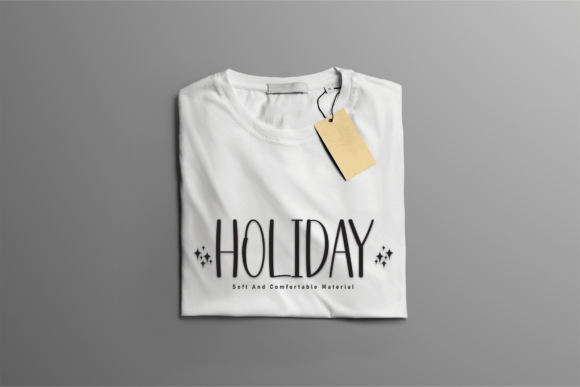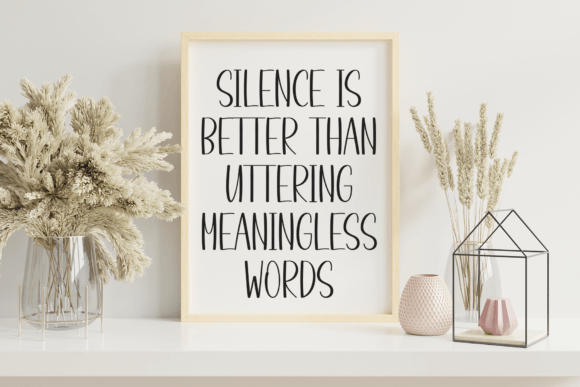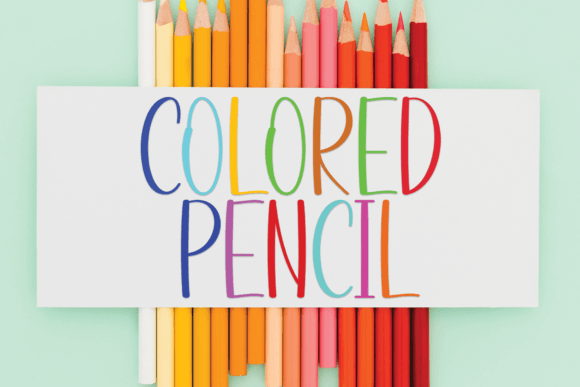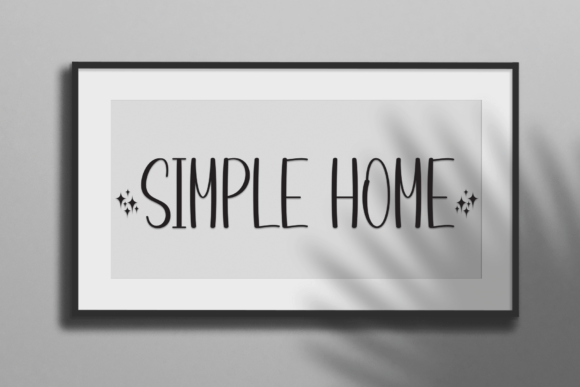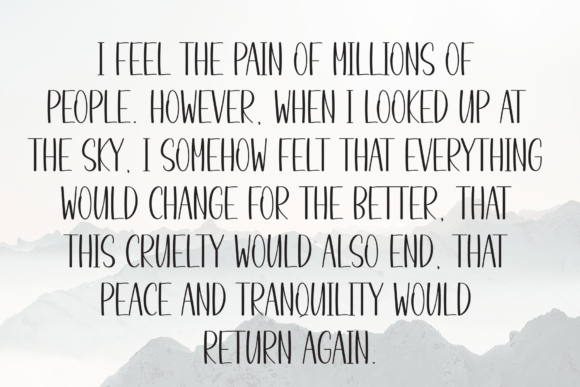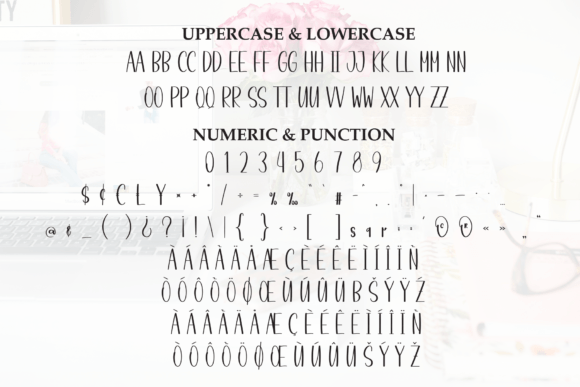
Introduction to Saturday Comeback Font
Saturday Comeback is a sweet and friendly sans-serif font that twinkles with innocence and warmth.
With tender letterforms and a playful aura, it captures the charm of childhood dreams Ideal for projects seeking a lighthearted and endearing aesthetic, Saturday Comeback adds a delightful and nostalgic touch to your creative expressions.